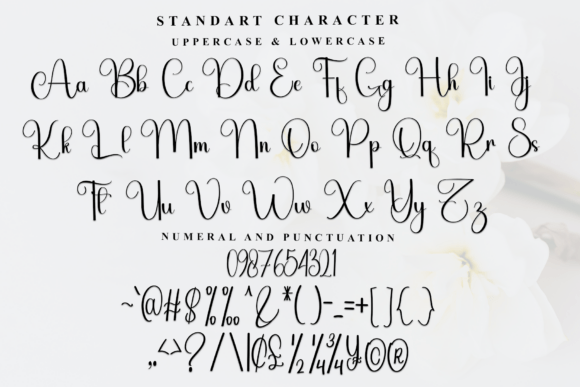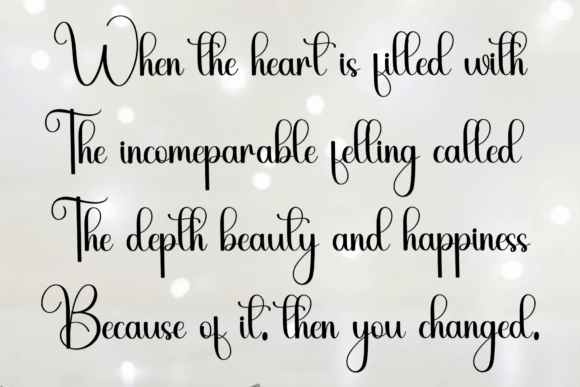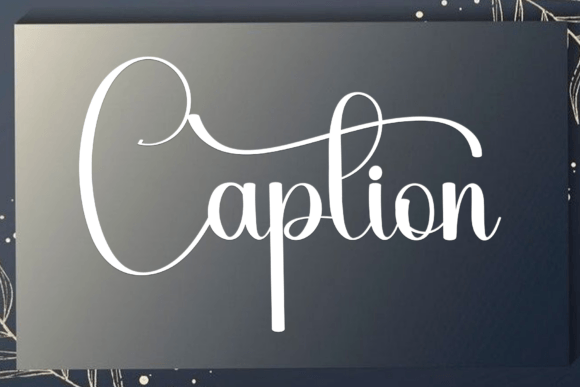
The Quest for the Perfect Font: Discovering Beautiful Handmade
I’ll never forget the time I was working on a project for a client who wanted a custom wedding invitation. I had the design concept nailed, but I was struggling to find the perfect font to bring it all together. The font had to be elegant, yet modern; classy, yet playful. I scoured the internet, tried out dozens of fonts, but nothing seemed quite right. That was until I stumbled upon Beautiful Handmade.
Beautiful Handmade is an exquisite handwritten font, masterfully designed to become a true favorite. It maintains its classy calligraphic influences while feeling contemporary and fresh. I was immediately smitten, and I knew I had found the perfect font for my project.
What I Love About Beautiful Handmade ✨
- ✅ Elegant and sophisticated, yet approachable and friendly
- ✅ Beautifully crafted with attention to detail
- ⚠️ Some characters may not work well in all contexts (e.g., using the font for a long-form document)
Exploring Alternatives: Similar Fonts to Beautiful Handmade
If you love Beautiful Handmade, you may also like these similar fonts:
- Pacifico: A beautiful, elegant script font with a relaxed, beachy vibe. Use it for creative projects, such as branding, packaging, or social media graphics.
- Great Vibes: A modern, stylish script font with a sophisticated feel. Use it for luxury brands, high-end products, or formal events.
- Lobster: A classic, elegant script font with a refined, sophisticated personality. Use it for formal events, such as weddings, galas, or black-tie events.
- Carolyna Pro: A beautiful, elegant script font with a warm, inviting personality. Use it for creative projects, such as branding, packaging, or social media graphics.
The Story Behind Beautiful Handmade: Designer Inspiration
Beautiful Handmade was designed by a talented typographer who wanted to create a font that would capture the essence of handmade craftsmanship. The designer drew inspiration from traditional calligraphy and lettering techniques, combining them with modern digital tools to create a truly unique font.
The designer’s goal was to create a font that would be both elegant and approachable, sophisticated and friendly. After months of careful crafting, Beautiful Handmade was born.
Q: Is Beautiful Handmade suitable for long-form text?
A: While Beautiful Handmade is highly legible, it may not be the best choice for long-form text. It’s better suited for headlines, titles, and short paragraphs.